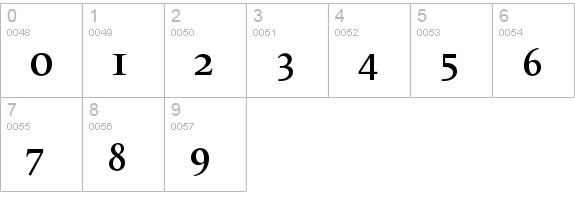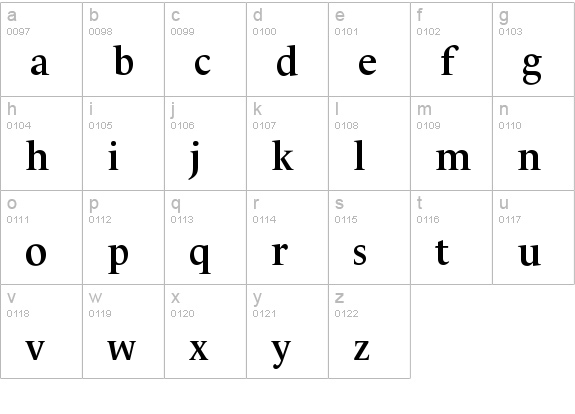
LeMondeLivre Demi Oldstyle Figures is a sub-bold, structured variant in the LeMondeLivre typeface family \xE2\x80\x94 well suited to sub-headlines and emphasised passages.
LeMondeLivre Demi Oldstyle Figures font is a captivating typeface that effortlessly blends elegance and classic charm. Its timeless appeal is evident in the delicate curves and refined strokes of each letter, exuding a sense of sophistication and grace. The Demi Oldstyle Figures variant of LeMondeLivre font showcases a unique blend of vintage aesthetics and modern sensibilities. The slightly condensed letterforms give it a sleek and streamlined appearance, making it ideal for both print and digital applications. The figures in this font are meticulously crafted, displaying a sense of balance and harmony. Each numeral effortlessly complements the rest of the characters, ensuring a cohesive and visually pleasing typographic experience. One of the most remarkable aspects of LeMondeLivre Demi Oldstyle Figures font is that it is available for free. Aspiring designers, typographers, and enthusiasts can freely download this font at FontsMarket.com, expanding their creative horizons and adding a touch of sophistication to their projects. Whether used in editorial design, branding, packaging, or any other creative endeavor, LeMondeLivre Demi Oldstyle Figures font is sure to leave a lasting impression. Its timeless elegance and versatile nature make it a valuable asset for any design toolkit. Embrace the beauty of this font and allow it to elevate your designs to new heights.